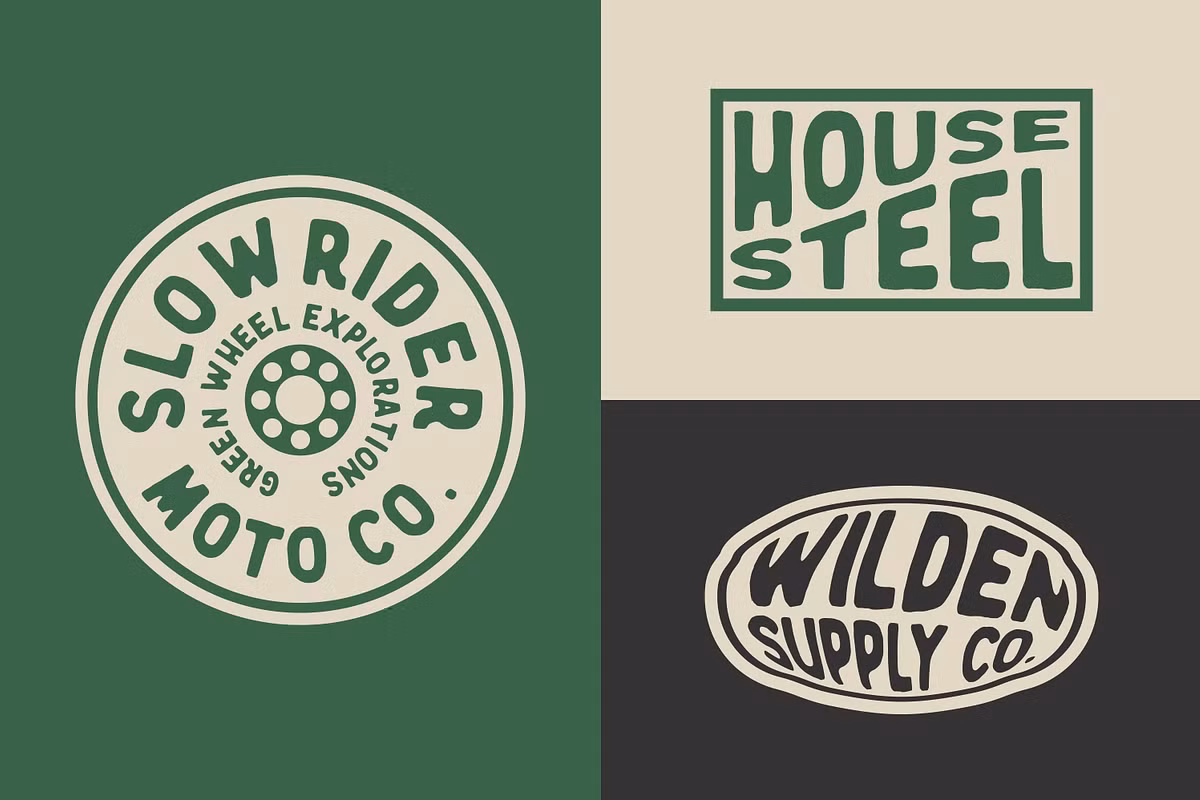
Wilden – Handdrawn Vintage Typeface: Perfect Font for Classic Designs
Introduction to Wilden – Handdrawn Vintage Typeface
The Wilden font is really something special – it’s like a blast from the past, with its vintage style and handmade look. If you want to give your projects a classic feel, this is the perfect choice. It’s great for all sorts of design work, like branding and printing, because it’s so versatile. Plus, it’s got a unique set of characters that will make your work stand out. So, whether you’re designing a logo, a t-shirt, or something else entirely, The Wilden font is a great way to add some artistic flair and make your project look amazing. It’s a timeless choice that’s still totally on-trend, and it’s sure to give your work a touch of nostalgia that will really resonate with people. With its beautiful, hand-drawn design, The Wilden font is perfect for anyone who wants to add a little extra something to their projects and make them truly unforgettable.
Design Style of Wilden
The Wilden typeface has a really unique look that’s like it was drawn by hand. It’s got a classic feel to it, but it also works well with modern designs. The curves and lines of each letter are a bit rough around the edges, which gives it a genuine, homemade feel – like it was written by hand. This style makes Wilden perfect for projects that need a personal touch, it adds a sense of warmth and creativity.
Use Cases for Wilden Typeface
Wilden is a versatile typeface that shines in various design applications. Here are some of the key use cases where this font truly excels:
- Branding: Wilden’s classic look is perfect for businesses like cafes, boutiques, or specialty food products that want to seem unique and nostalgic.
- T-Shirt Designs: The unique hand-drawn style can transform simple t-shirt designs into eye-catching statements.
- Business Cards: Make your cards truly unforgettable with the unique Wilden typeface.
- Posters and Flyers: Great for retro or vintage looks, ensuring your message is clear.
- Photography Quotes: Wilden adds elegance and creativity to text overlays on images.
By using Wilden, these companies can create a strong brand image that stands out. The old-fashioned style of the typeface can help people remember the brand and feel a certain way about it. It’s a good choice for businesses that want to seem traditional, yet still stylish and modern.
Pairing Suggestions for Wilden Typeface
When you’re looking to pair fonts with Wilden, its one-of-a-kind style can actually work really well with a bunch of different typefaces. Here are some suggestions for pairing fonts that can really make your design stand out:
- Serif Fonts: Pairing Wilden with a clean serif font like Playfair Display creates a stunning contrast.
- Modern Look: Pairing with a simple font like Montserrat balances Wilden’s fancy style.
- Whimsical Pairings: Combining with a fun script font like Pacifico adds personality to creative projects.
Choosing the right pairings can elevate the overall design, making it cohesive and visually appealing.
The Wilden – Handdrawn Vintage Typeface is an exceptional font that brings a vintage touch to any design project. With its unique hand-drawn style, extensive character sets, and versatile applications, it is ideal for anyone looking to create stunning graphics that resonate with a classic aesthetic. Whether you need a font for branding, t-shirt designs, business cards, or posters, Wilden is sure to elevate your work. Explore its capabilities, and let your creativity shine with this beautifully crafted typeface.